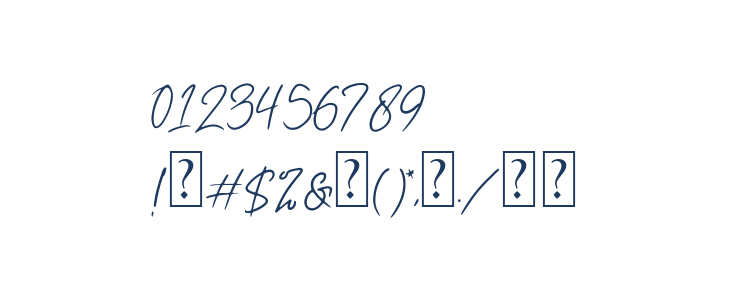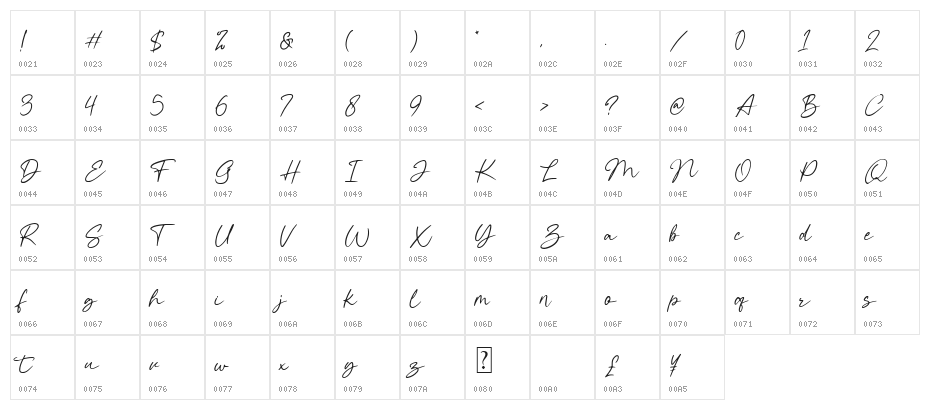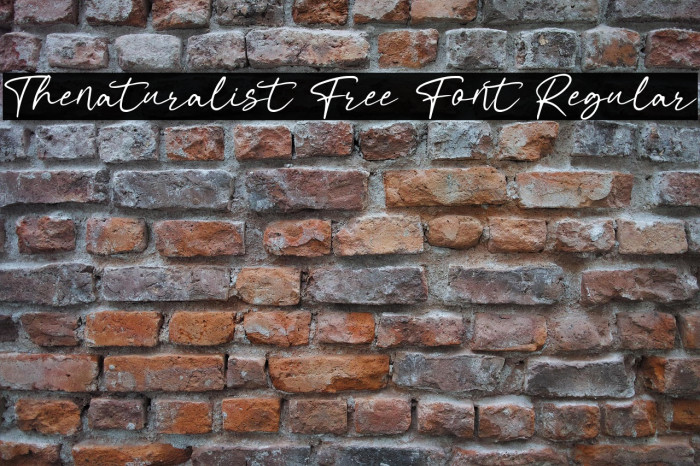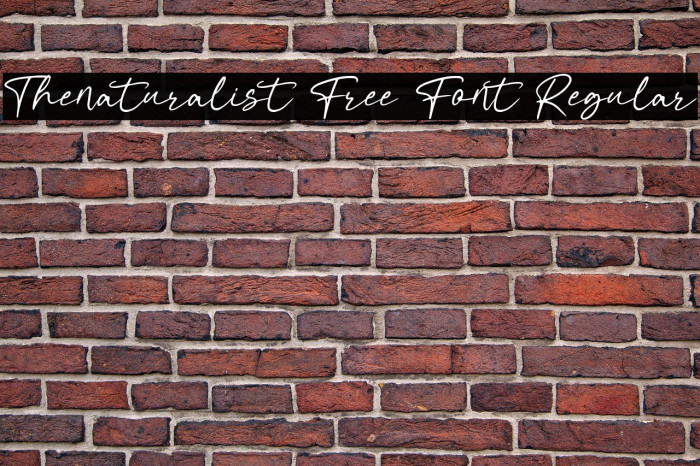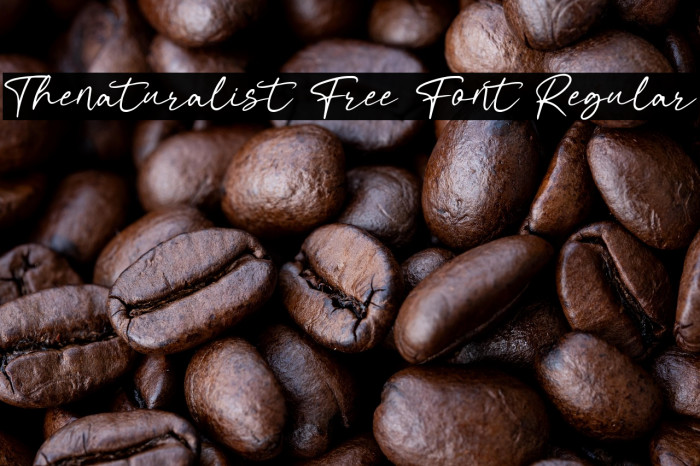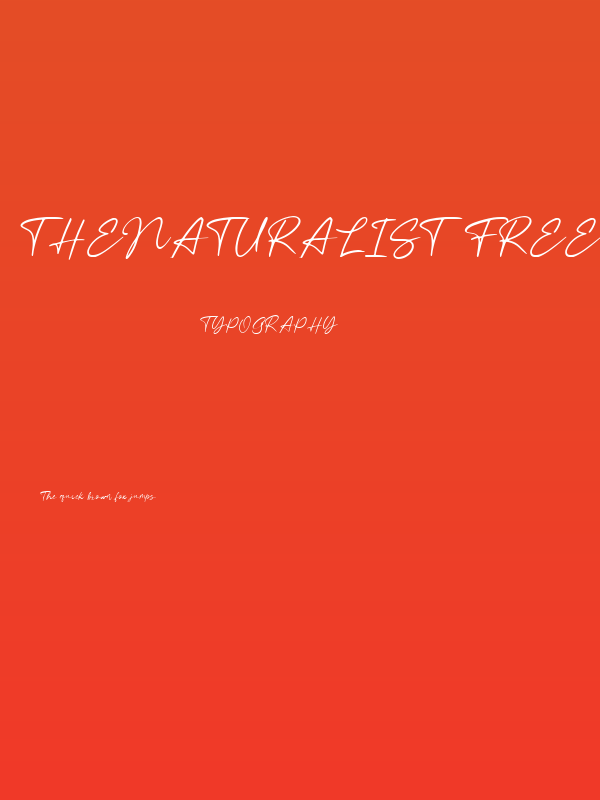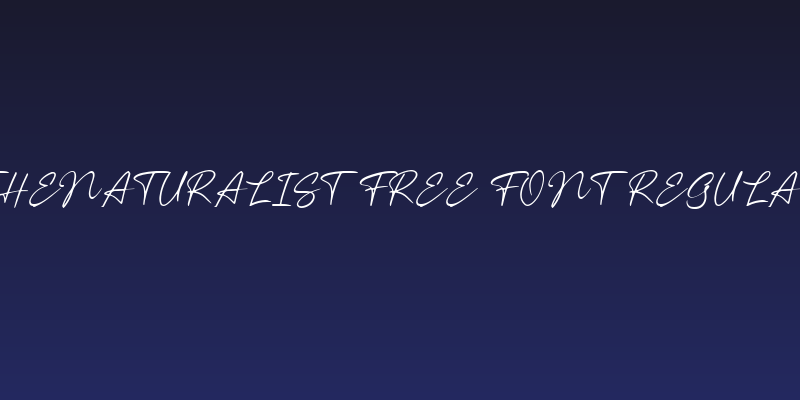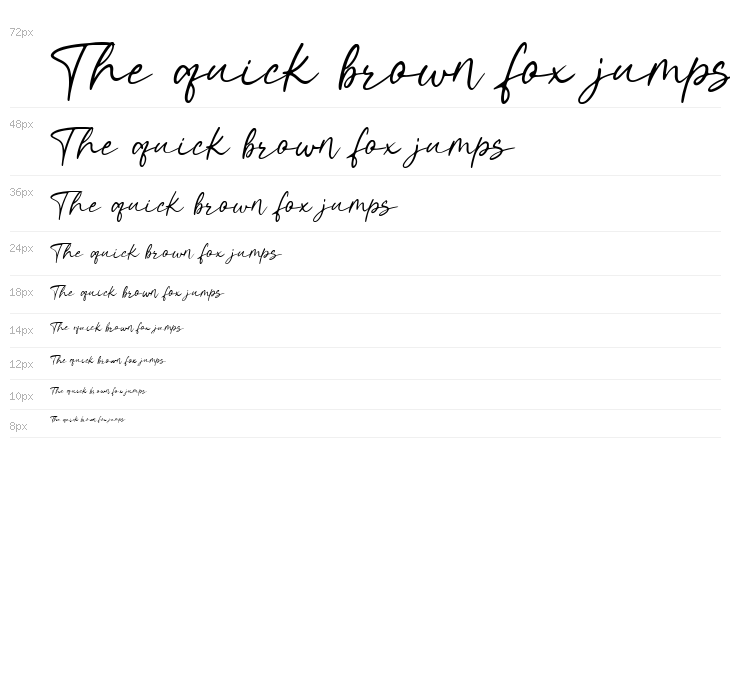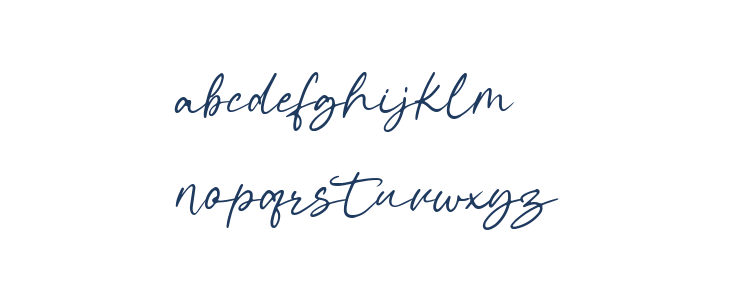
Thenaturalist Free Font Regular Font
Thenaturalist Free Font Regular Description
This font features a flowing, cursive style that mimics natural handwriting, offering an elegant and personal touch. The letters are connected in a fluid manner, creating a seamless and harmonious appearance. The strokes are smooth and slightly varied in thickness, adding a dynamic and lively feel. The uppercase letters are bold and prominent, while the lowercase letters maintain a consistent flow, enhancing readability. The numerals and special characters are crafted with the same attention to detail, ensuring a cohesive look across all elements. This font exudes a sense of sophistication and creativity, making it ideal for projects that require a personal and artistic flair.
| Overall Style | Elegant, Artistic |
| Proposed Projects | Ideal for wedding invitations, greeting cards, personal branding, and artistic projects that require a touch of elegance and personality. |